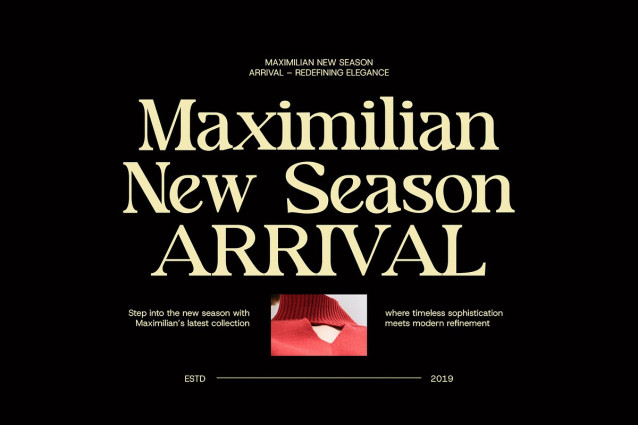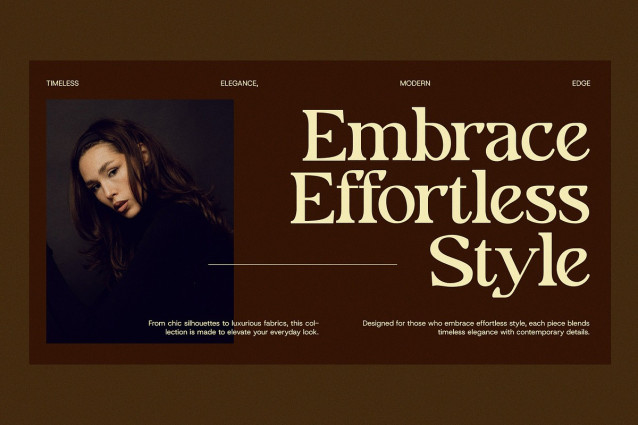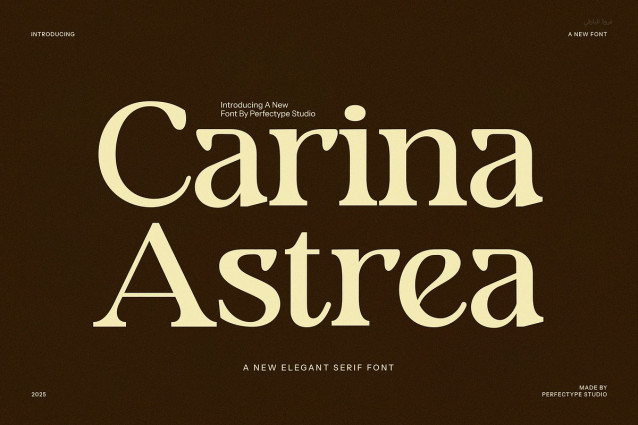
Carina Astrea Font
Carina Astrea Elegant Serif Font is a sophisticated and modern typeface that embodies the perfect balance between elegance and contemporary design. With its stunningly crafted ligatures and alternate characters, this font adds a unique, high-end touch to any project. Its refined serifs and graceful curves offer an air of luxury, making it an excellent choice for designers who want to make a bold yet refined statement.
Carina Astrea is incredibly versatile, fitting seamlessly into a wide range of applications, from chic branding and luxury logos to stylish websites and upscale magazine layouts. Its beautifully proportioned letterforms ensure exceptional readability, making it suitable for both print and digital use. Whether you’re designing for an elegant boutique, a fine dining restaurant, or a premium product line, Carina Astrea brings sophistication and clarity to any design.
The font’s unique ligatures and alternate forms provide endless creative possibilities, allowing designers to personalize their typography and achieve one-of-a-kind results. From advertisements to product packaging, Carina Astrea‘s timeless elegance is sure to elevate your brand identity and leave a lasting impression.
Perfect for projects that require a blend of modern aesthetics and classic charm, Carina Astrea Elegant Serif Font delivers a polished, refined look that suits a wide array of industries. Whether you’re working on a high-end product launch or an exclusive event invitation, this font is the perfect choice to bring your vision to life with style and grace.